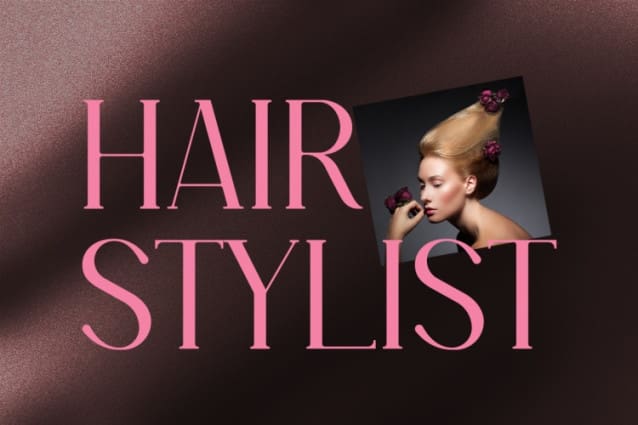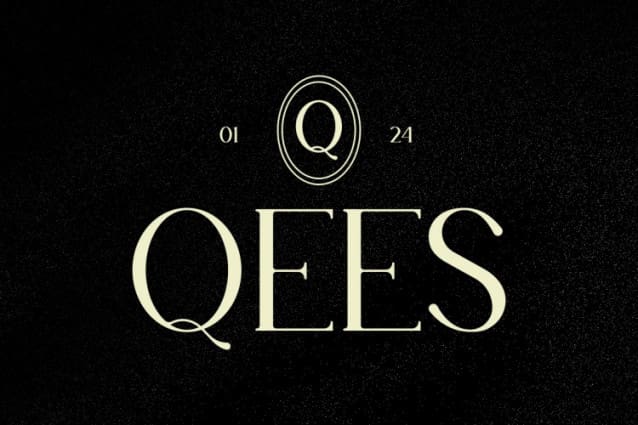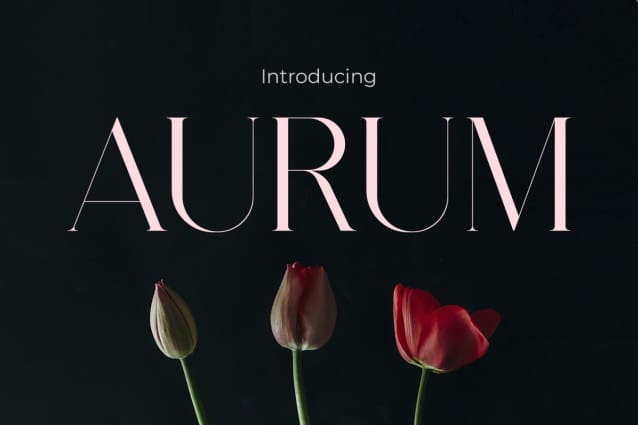
Aurum Font
Aurum Font – Enhancing Designs with Elegance and Floral Charm. Infuse your designs with an air of sophistication and the beauty of flowers using the premium font, Aurum. Each letter carries a sense of luxury and grace, making every design project more captivating.
Aurum Font is not just a font; it’s a typographic masterpiece that combines elegance with the delightful essence of flowers. Suitable for various purposes, this font will bring a special touch to logos, quotes, invitations, and other design materials. Embellish your creativity with Aurum, where each letter harmonizes the timeless elegance with the beauty of flowers